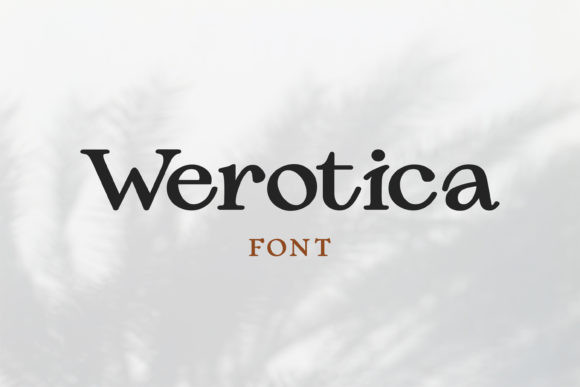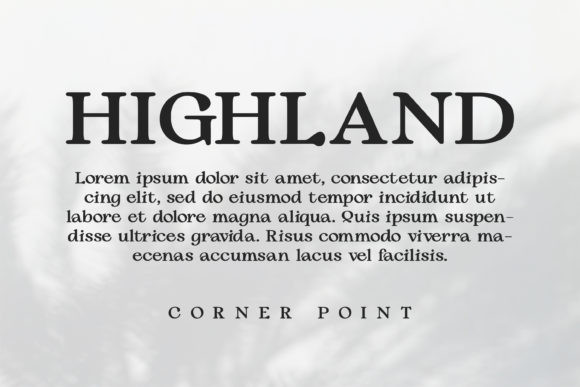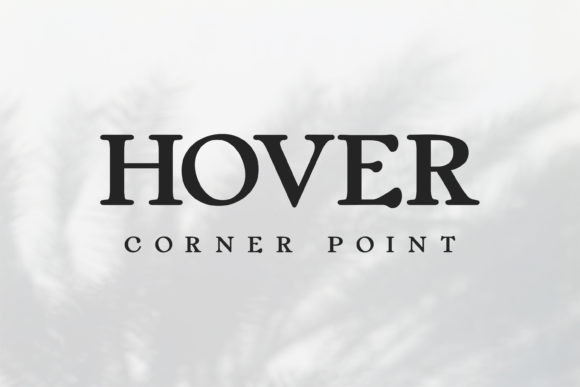
Werotica Font
Werotica is a cool, adaptable and trendy display font. Not too thin and not too thick, balanced and varied, Werotica was designed to enhance the beauty of your projects.